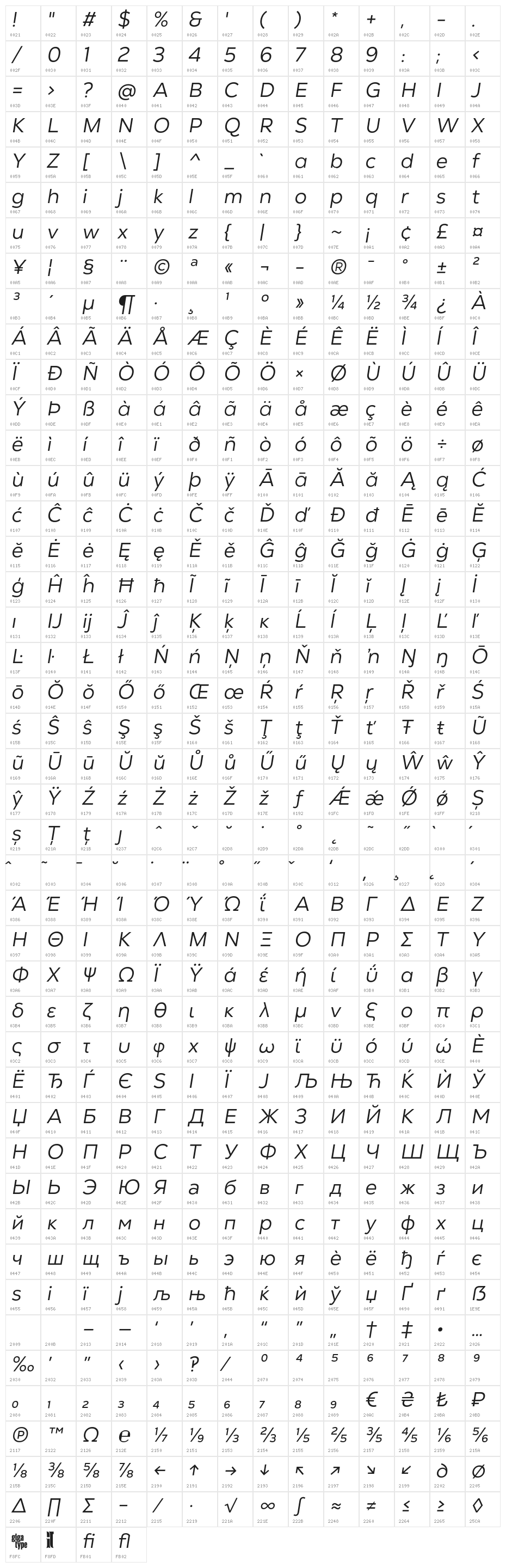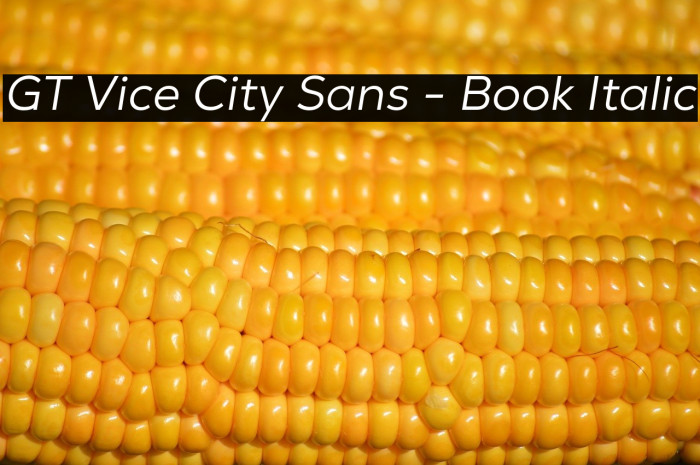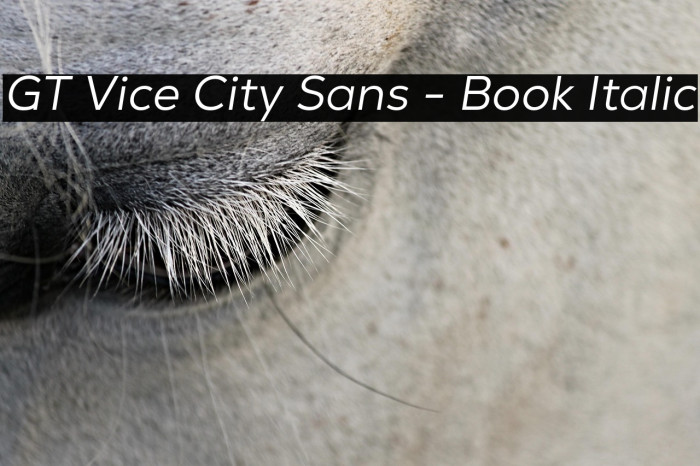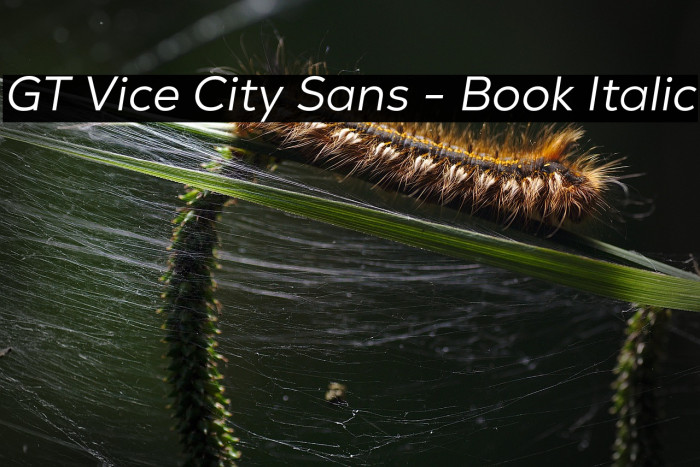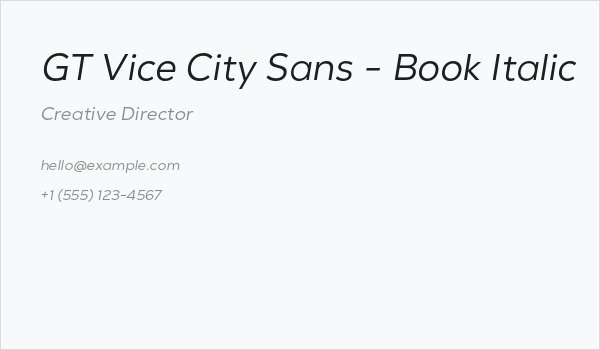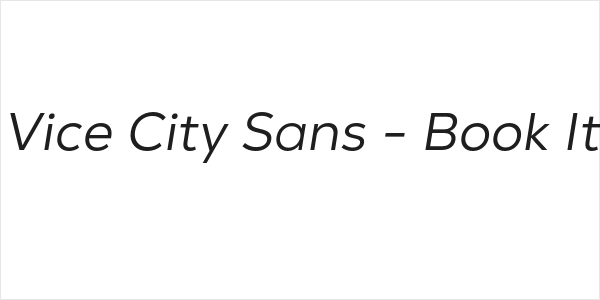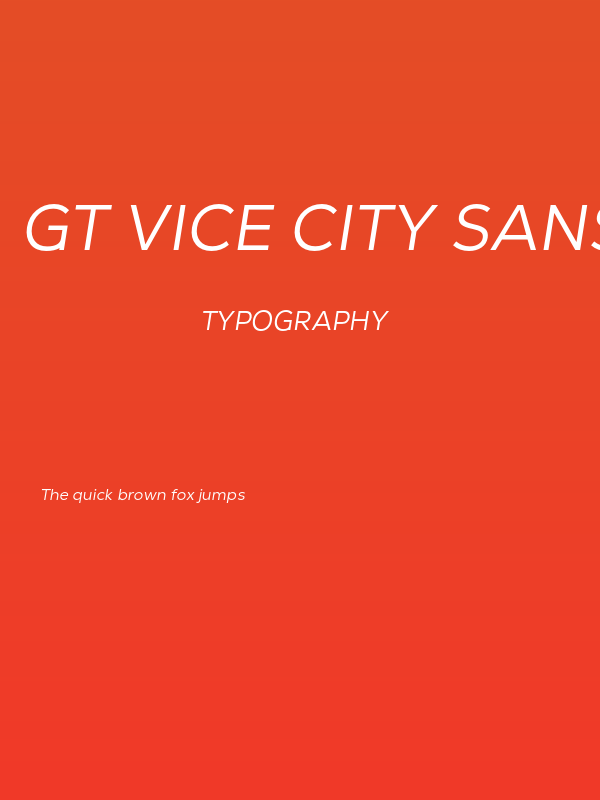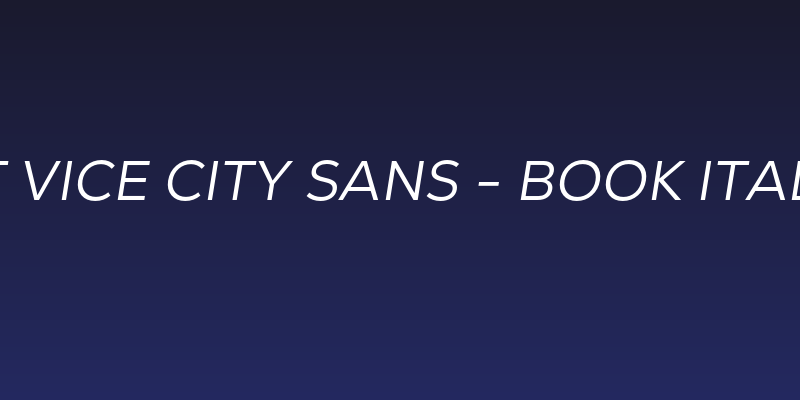
GT Vice City Sans - Book Italic Font
GT Vice City Sans - Book Italic Description
A modern sans-serif font with a clean and sleek design, featuring italicized characters and smooth curves.
| Use Case | Headlines, Body text |
| Proposed Projects | Branding, advertising, digital content. |